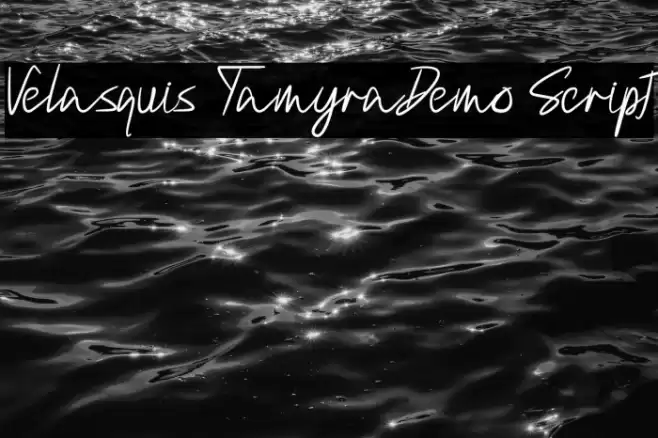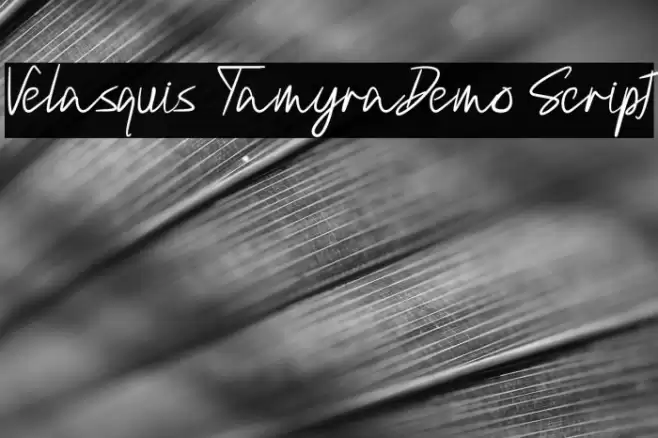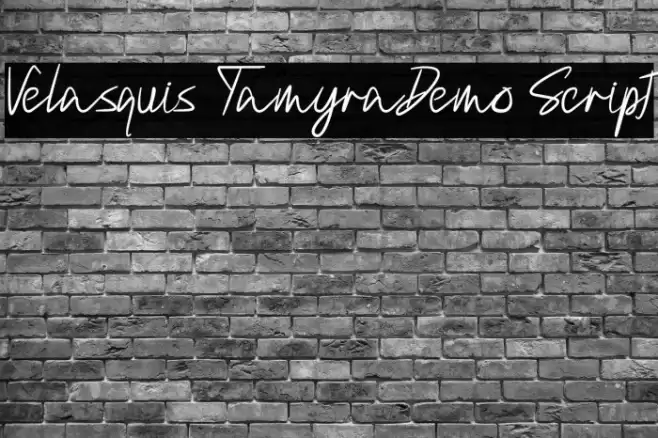
Velasquis TamyraDemo Script Font
Velasquis TamyraDemo Script Description
This font exudes a dynamic and expressive style, characterized by its fluid, cursive script that mimics natural handwriting. The letters are interconnected with smooth, flowing strokes, giving it an elegant yet casual appearance. The uppercase and lowercase letters maintain a consistent slant, enhancing the handwritten feel. The strokes vary in thickness, adding a touch of sophistication and movement to the text. This font is ideal for projects that require a personal touch, such as invitations, greeting cards, or branding materials that aim to convey warmth and creativity.
A dynamic, cursive script font with a natural, handwritten style from Regular fonts.
- Proposed Projects: Ideal for invitations, greeting cards, personal branding, and creative projects.
- Use Case: Logos, Headlines, Personal projects